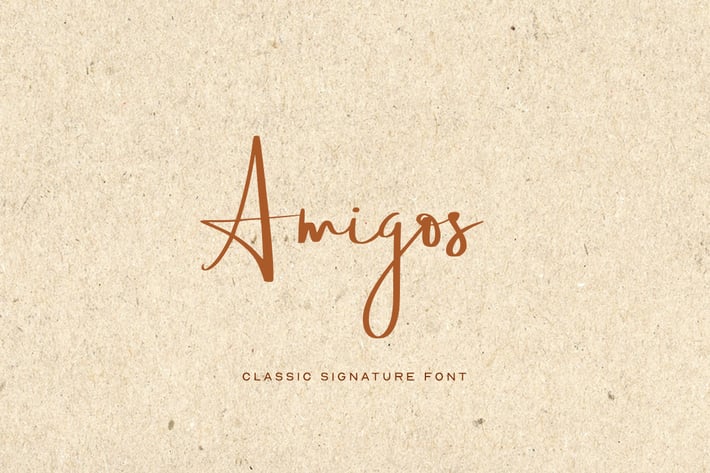
Amigos - Handmade Signature / Luxury / Script Font
Amigos is a classic handwritten script font for luxury / signature / branding / logotype / wedding invites / greeting cards / promotional graphics. Amigos is completely handmade with more than 140 hours of artistic craftsmanship bringing perfection and aesthetics at its level best. The font includes extended language support including Western European & Central European sets.
Advanced Kerning & Essential Ligatures:
We have performed advanced, in-depth kerning to make sure the font looks amazing on all possible letter combinations.
Font produced by Lis (Lisha) at Fontastica, distributed by Designova. Handcrafted with ProCreate + Apple Pencil2 on iPad Pro and Fontself used for type production.